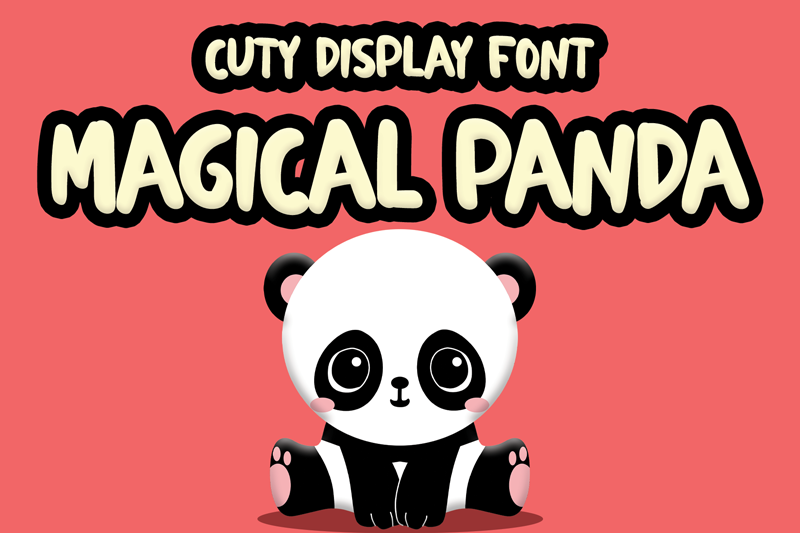
Preview and download Magical Panda Font. Created by Erik Luluk in Fancy Cartoon styles with Free for personal use license.
Font name: | Magical Panda |
Magical Panda is a cute & friendly display font. Get inspired by its incredibly youthful feel. Add this chunky lettered font to your designs and notice how it makes them come alive! Attention : Magical Panda handwriting Font is prohibited to use this font for commercial purposes or for profit without the permission of the author/admin, without being known to use this font without permission, will be subject to sanctions 5x the specified price. This font is used only for demos (Demo license) If you want to use this font for commercial use please contact email: erikluluk0@gmail.com or click the link below: https://www.creativefabrica.com/product/magical-panda/ref/745146/ If you want to see more other fonts, please click:https://www.creativefabrica.com/designer/erik-studio/ref/745146/ Any donations are very appreciated. Paypal account for donation: https://paypal.me/erikstudio1 thanks. |